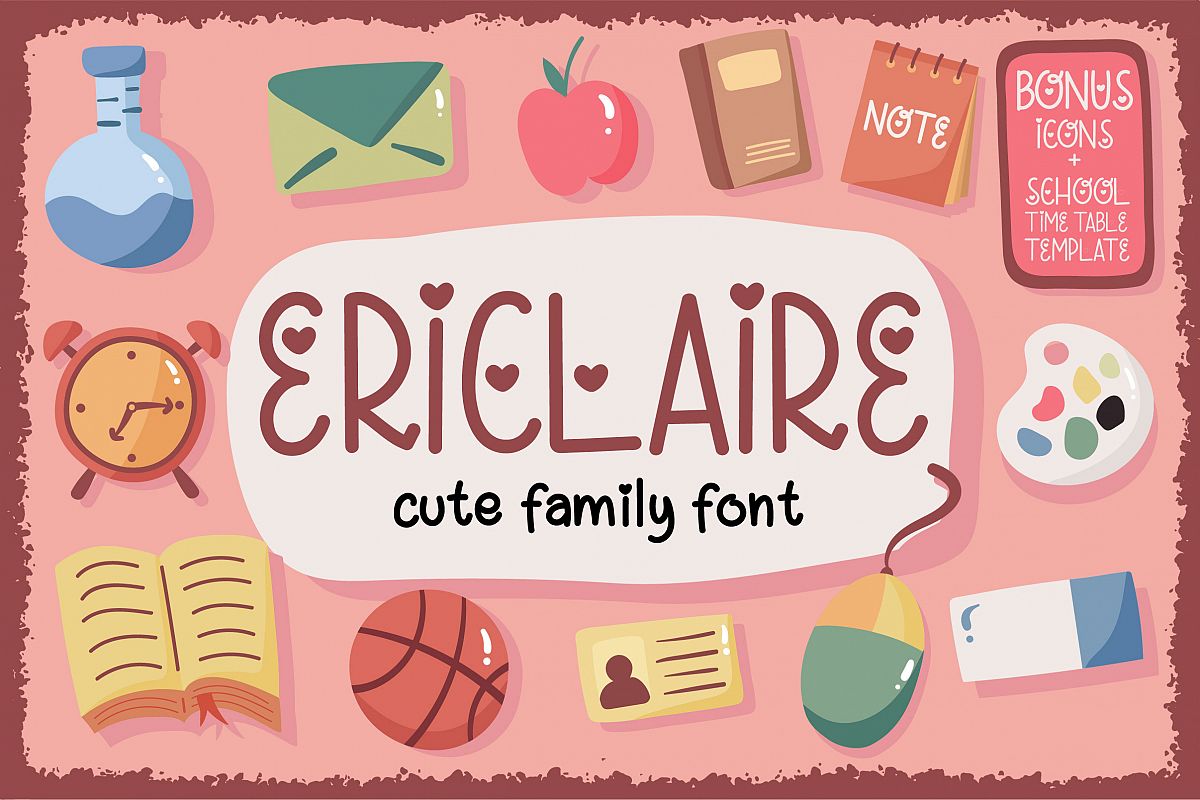
Ericlaire Font
Hello there! Meet Ericlaire, a cute typeface with 3 different style : regular, bold and shadow. It is also comes with icons and time table template as bonus. It will be perfect for school theme related design for kids, teenager and etc.